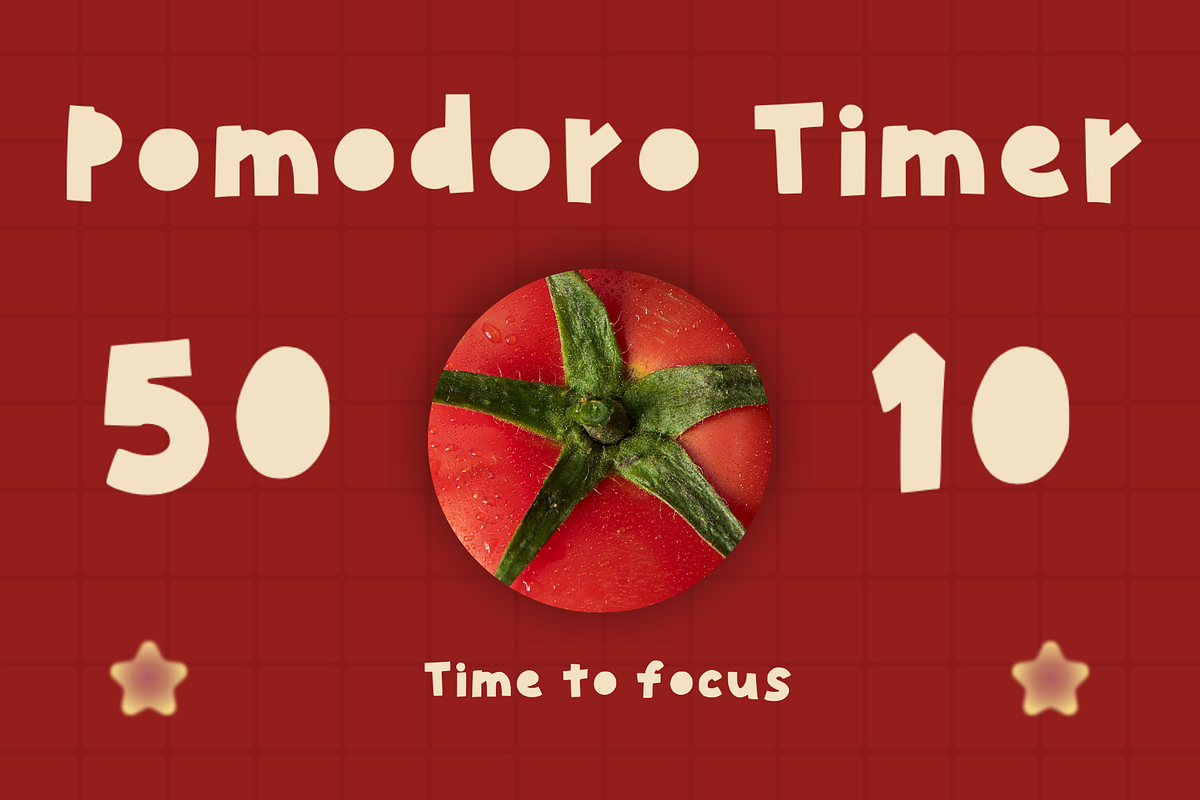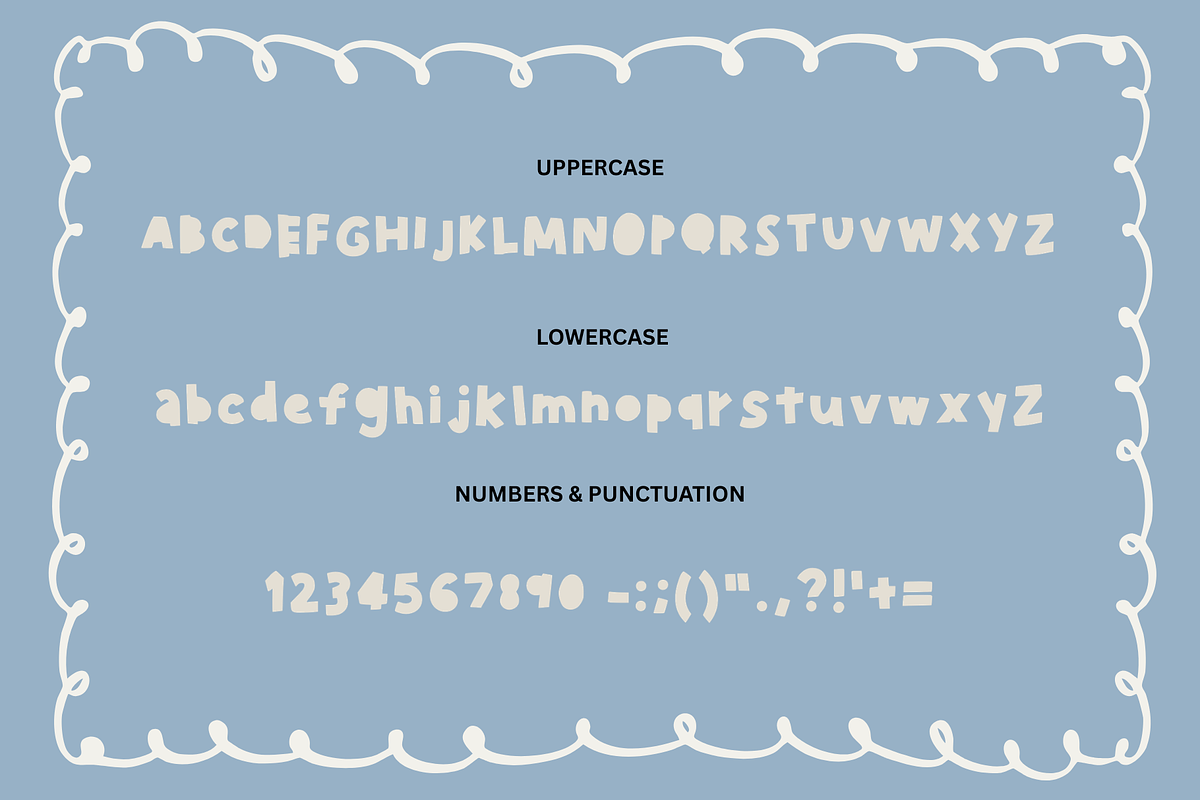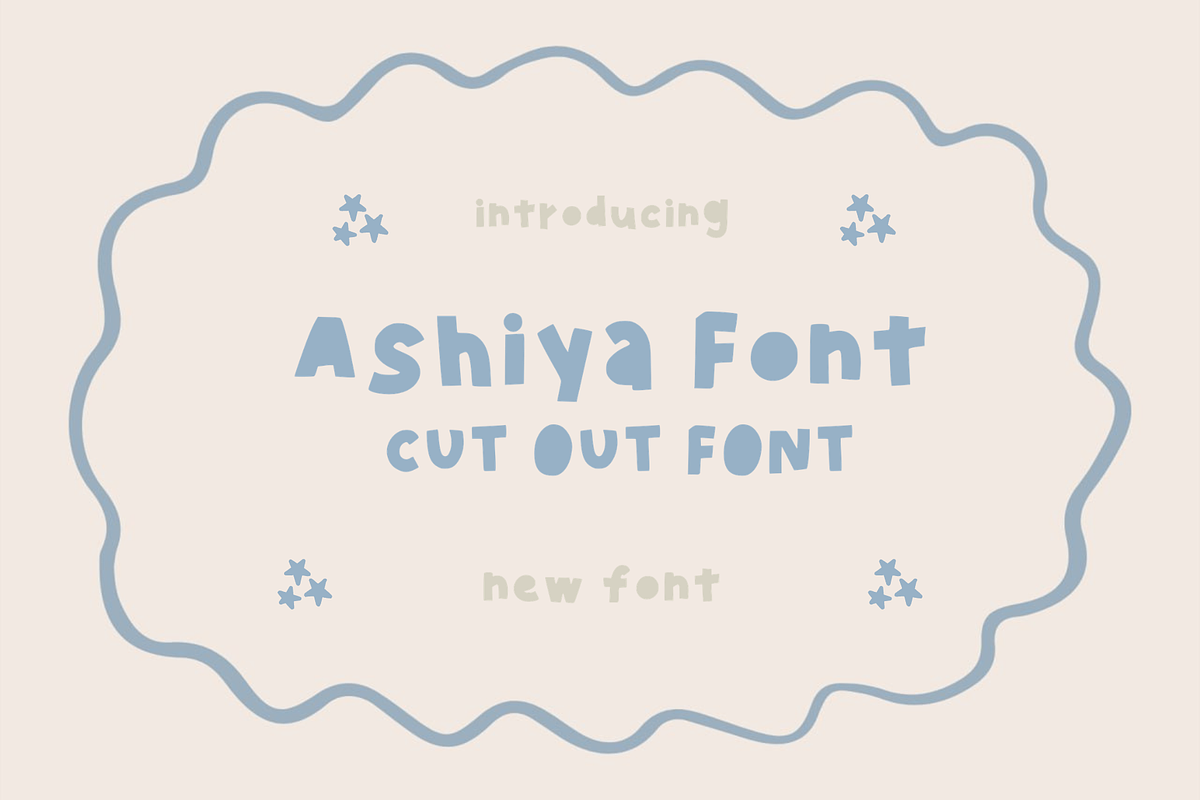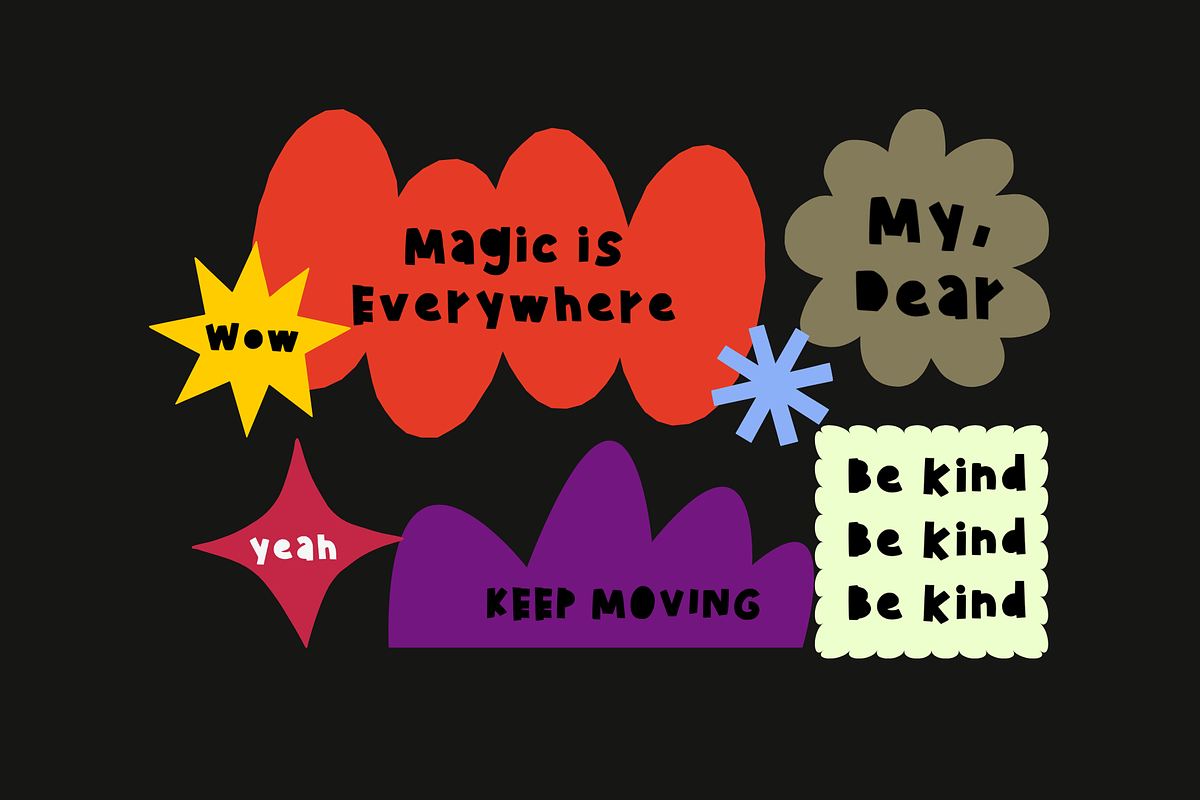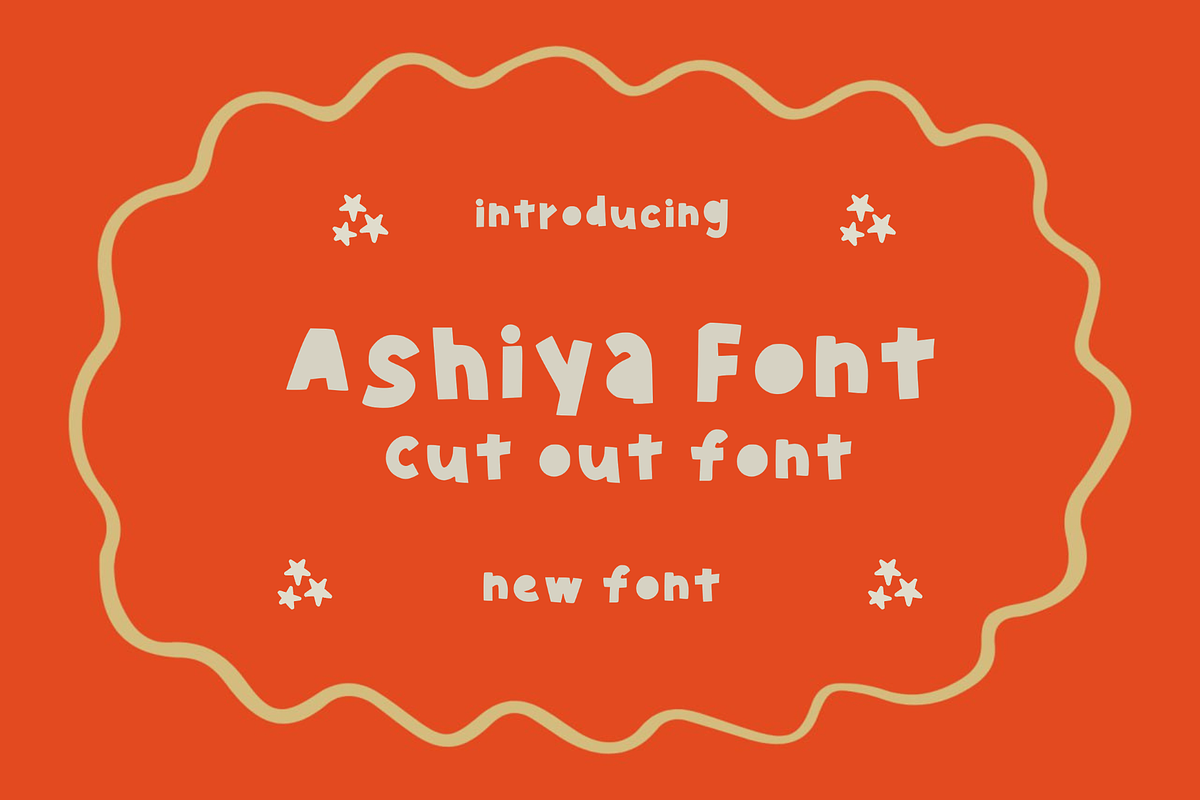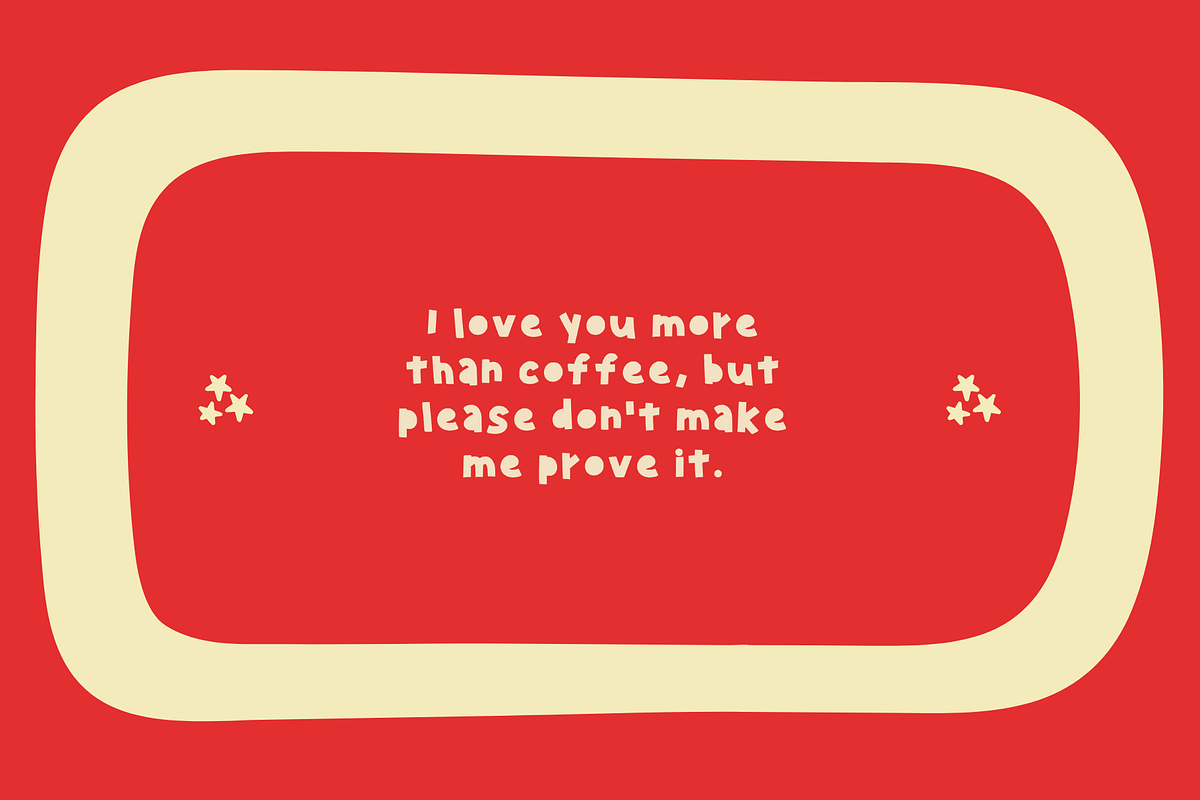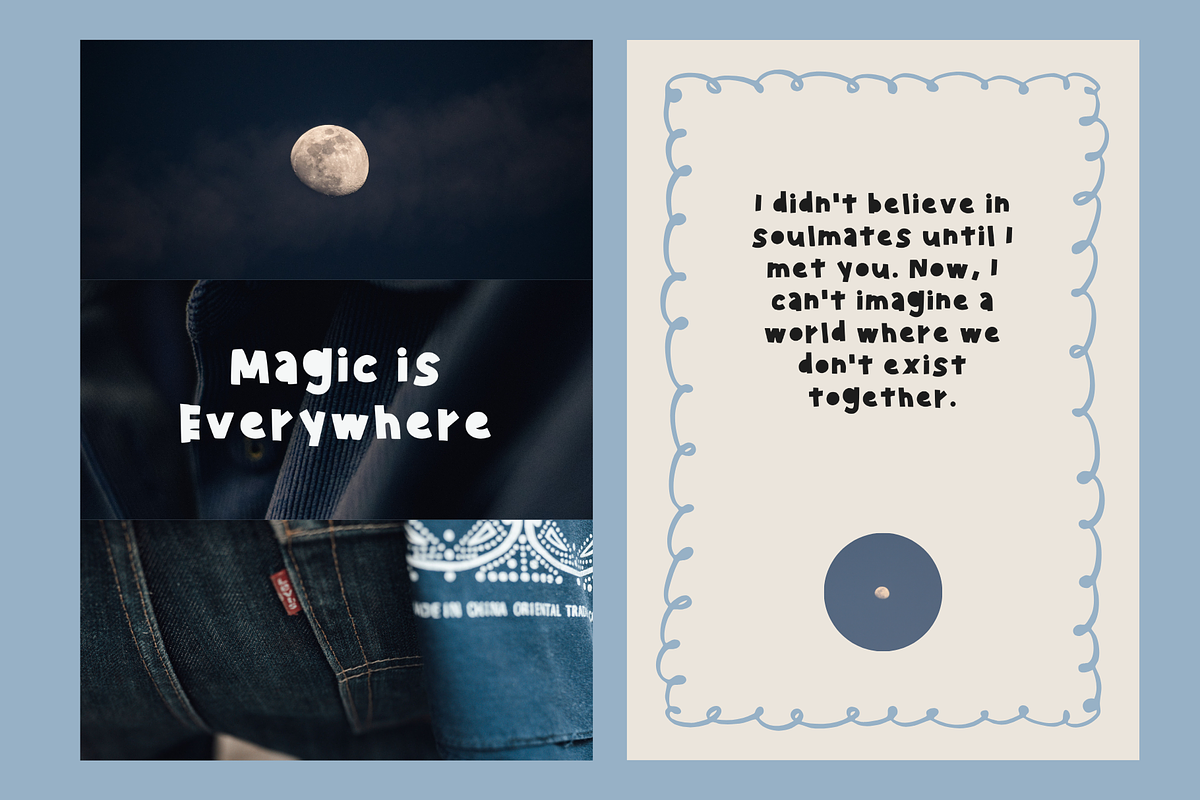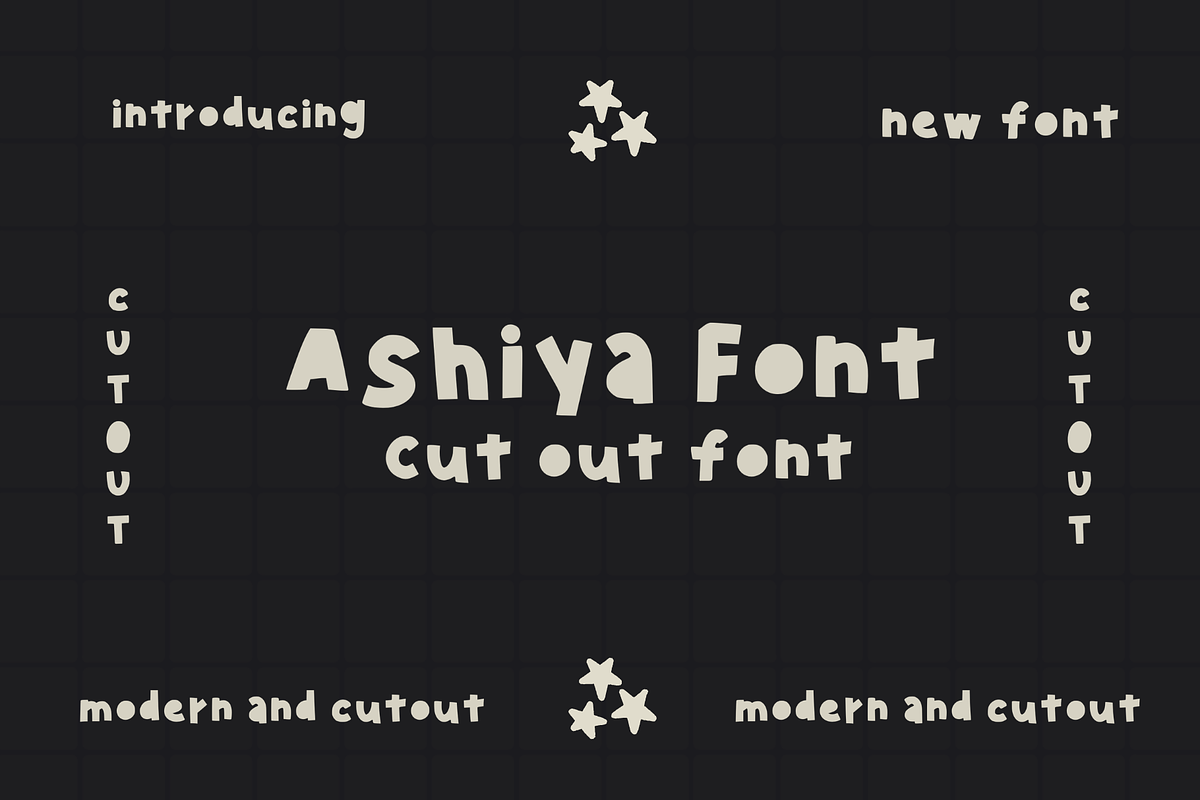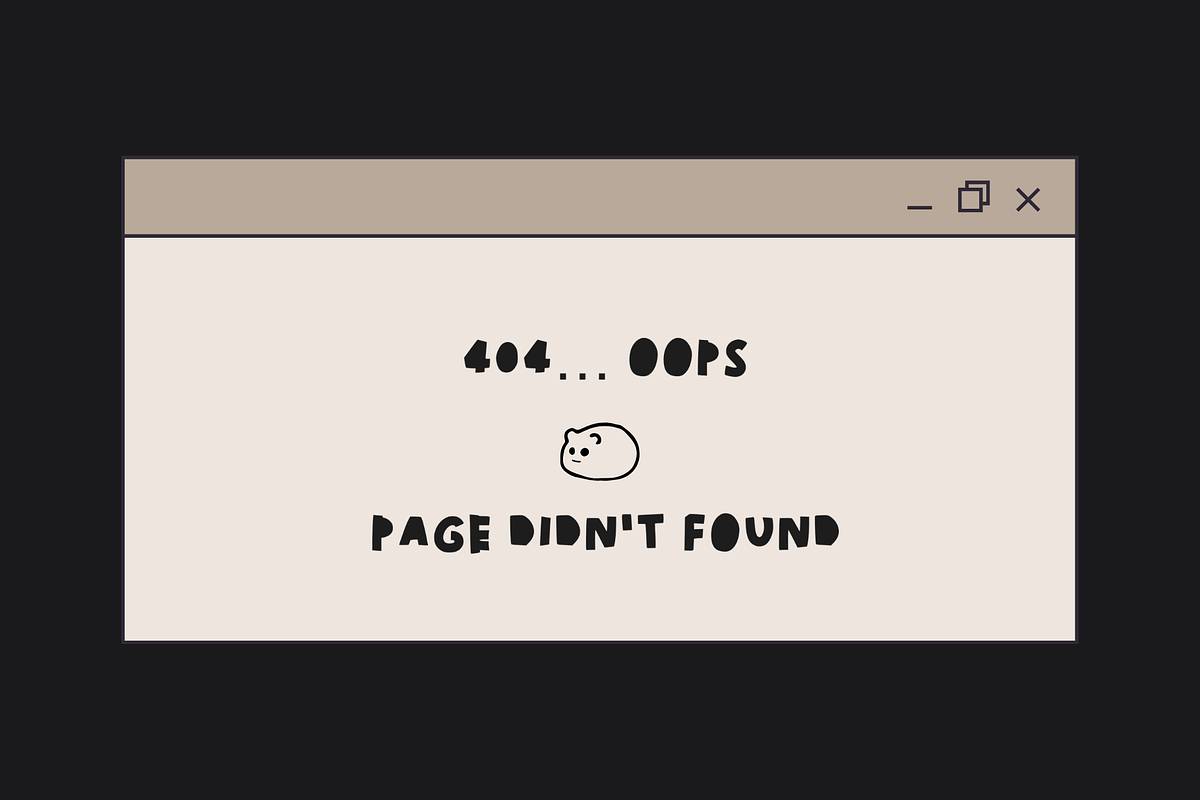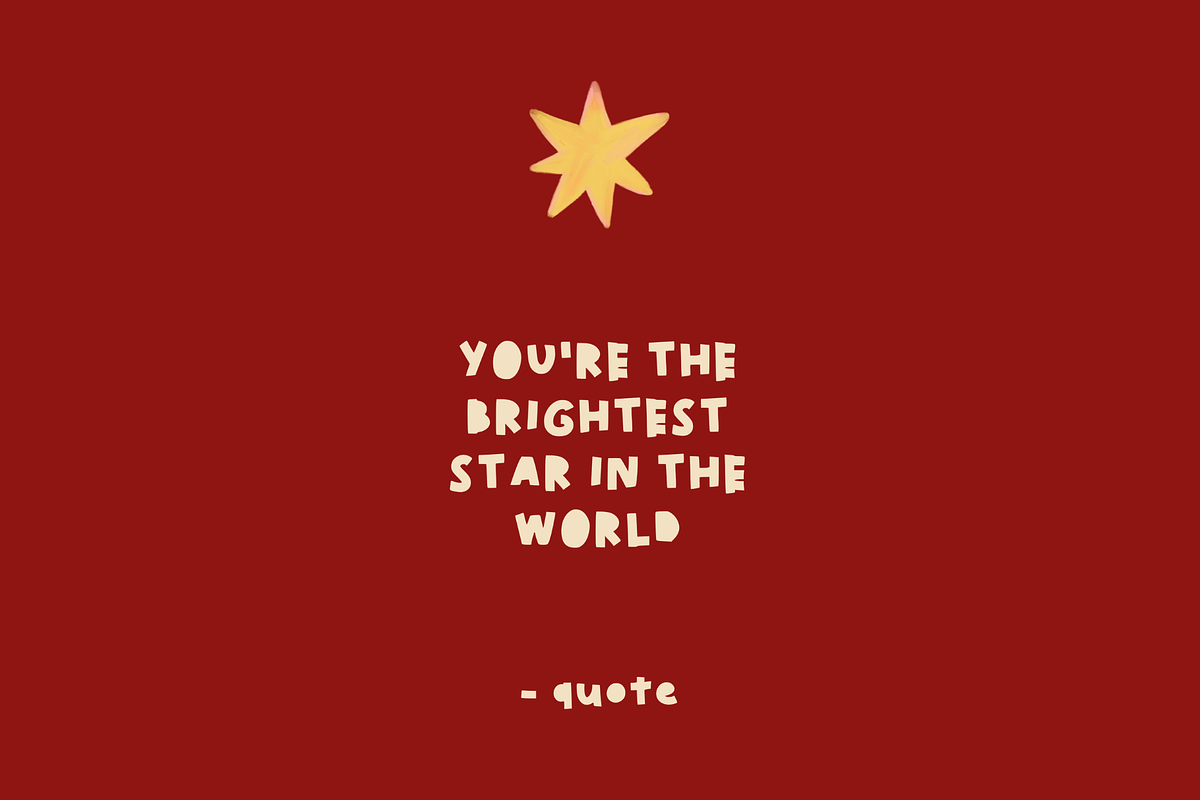
Ashiya - Playful Cutout HandDrawn
Ashiya is a playful, hand-drawn cutout font inspired by paper crafts and modern folk aesthetics. With its irregular shapes and bold, "cut-from-paper" look, this font is perfect for creators who want to add personality and a quirky, organic feel to their projects.
Perfect for: • Branding & Logos: Create memorable, friendly identities. • Social Media: Eye-catching quotes, Instagram stories, and YouTube thumbnails. • Packaging & Labels: Add a crafty, organic touch to physical products. • Printables: Ideal for greeting cards, invitations, and nursery wall art. • Web Design: Fun headers and decorative typography.